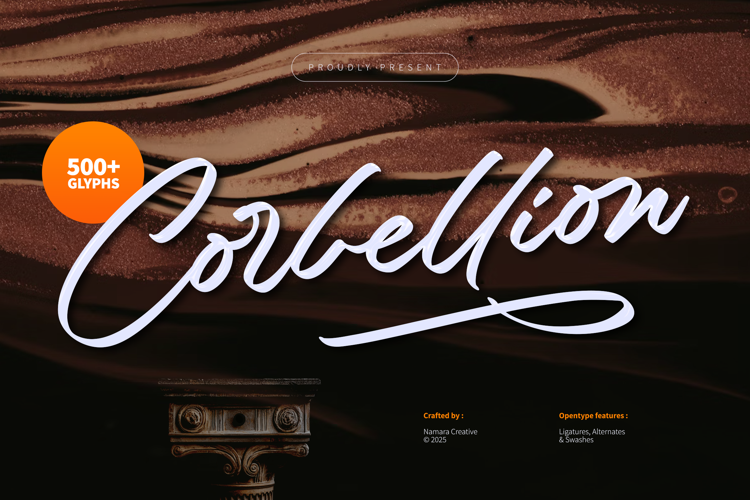
Corbellion Font
Bold and flowing signature script font that blends modern calligraphy with timeless elegance. Designed with over 500 meticulously crafted glyphs, Corbellion offers a versatile typographic experience with extensive OpenType features, including ligatures, alternates, and swashes—perfect for designers who crave expressive, hand-lettered aesthetics.